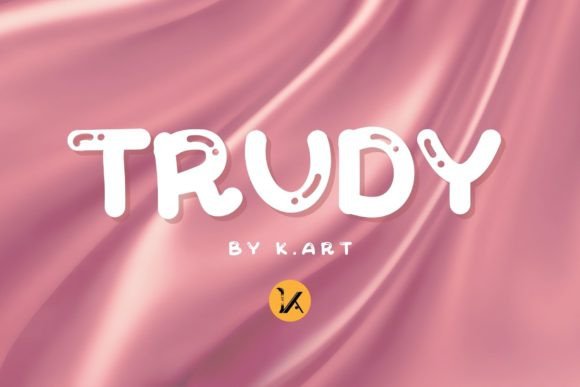
Feast your eyes on Trudy, the magical display font that will ignite your imagination and make your designs dance with joy! Bathed in a playful and whimsical spirit, Trudy is the perfect font for creating enchanting logos, captivating headlines, eye-catching posters, or any project that demands a touch of lightheartedness. Experience the extraordinary and craft designs that spark delight and leave an unforgettable impression. With Trudy by your side, your words will come alive with an irresistible charm that will captivate audiences at first sight. Let your creativity soar and witness the wonders that Trudy can bring to your digital masterpieces!
Trudy's versatility extends far beyond the ordinary, making it the ultimate choice for designers of all backgrounds. Whether you're a seasoned pro or just starting, Trudy's user-friendly nature will guide you effortlessly through your design journey. Dive into a world of limitless possibilities and discover the enchanting harmony that Trudy brings to any project. Its curves and delicate lines intertwine seamlessly, creating a visual symphony that's sure to captivate and inspire. Uncover the magic within your creations and unlock the true potential of your imagination.
Say goodbye to bland and uninspiring designs and embrace the vivacious energy of Trudy. Let your creativity blossom and allow your designs to radiate with an infectious sense of joy. With Trudy at your fingertips, you'll find yourself immersed in a realm of endless creative possibilities, where ordinary becomes extraordinary. Don't settle for mediocrity - let Trudy ignite your passion and elevate your designs to remarkable heights. As the saying goes, "Life is too short to be boring," and with Trudy, boredom will be a thing of the past. Dive into the boundless depths of creativity and let your imagination run wild!